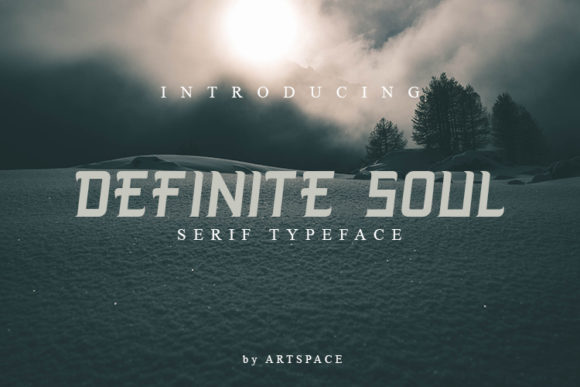
Enter the world of Definite Soul, a captivating serif font family that exudes timeless beauty and unmatched elegance. MJB Letters, the creative force behind this masterpiece, has crafted a typographic treasure that will elevate your designs to new heights of sophistication and impact.
Definite Soul is not just a font; it's an artistic expression that dances on the page, commanding attention and leaving an indelible mark on the minds of your audience. Its striking serifs and graceful curves lend a timeless charm that transcends trends, making it an enduring choice for discerning designers and typography enthusiasts.
Imagine your designs adorned with the allure of Definite Soul, where every letter becomes a visual symphony. Whether you're crafting logos, branding materials, invitations, or any other design project that demands a touch of distinction, Definite Soul is your perfect companion.
Its versatility extends beyond aesthetics, seamlessly adapting to a myriad of design styles and applications. From classic and traditional to modern and contemporary, Definite Soul effortlessly blends in, adding a touch of refinement and sophistication.
But what truly sets Definite Soul apart is its evocative power. Its strong personality and striking presence ignite emotions and create a connection with your audience that goes beyond words. Whether you seek to inspire, persuade, or simply captivate, Definite Soul has the power to amplify your message and leave a lasting impression.
So, embark on a creative journey with Definite Soul, where every design becomes a masterpiece. Experience the transformative power of typography and let your creativity flourish like never before. Definite Soul awaits you, ready to unleash its captivating charm and elevate your designs to new heights of brilliance.